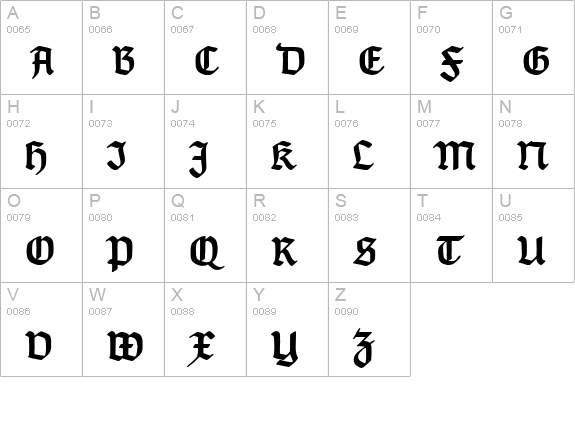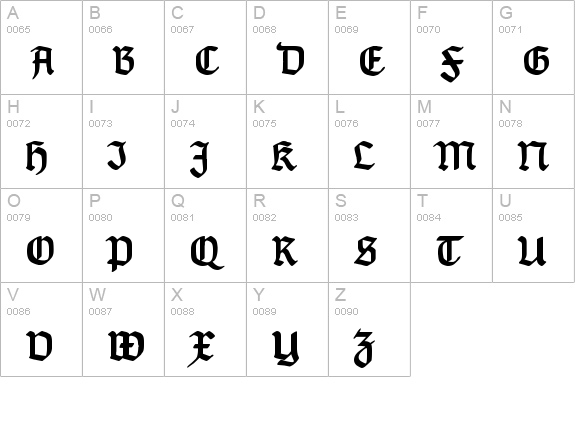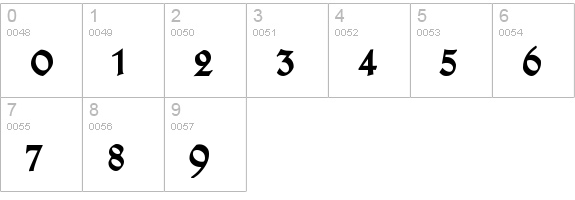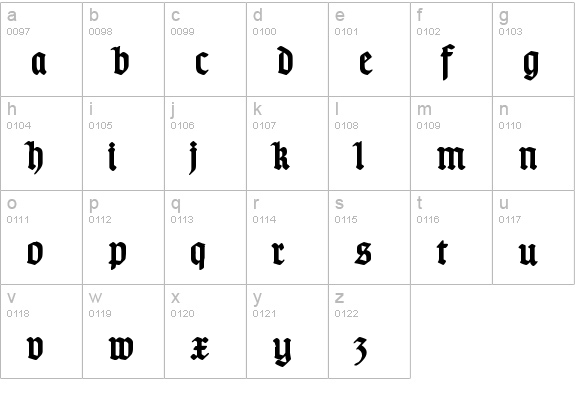
TypographerGotisch D Bold is a strong, high-contrast variant in the TypographerGotisch typeface family \xE2\x80\x94 well suited to headlines, attention-grabbing titles, and strong calls-to-action.
TypographerGotisch D Bold font is a stunning display typeface that exudes elegance and sophistication. Its bold and powerful letterforms make it perfect for headlines, logos, and any design project that requires a touch of grandeur. With its unique blend of Gothic and calligraphic influences, TypographerGotisch D Bold font stands out from the crowd, commanding attention and leaving a lasting impression. Its intricate details and carefully crafted curves give it a sense of timelessness, making it suitable for both traditional and modern designs. Not only does TypographerGotisch D Bold font possess a visually striking appearance, but it also offers incredible versatility. Its generous x-height and well-balanced proportions ensure excellent legibility, even at smaller sizes, ensuring that your message will always be clear and easily understood. And the best part? TypographerGotisch D Bold font is available for free download at FontsMarket.com. Yes, you read that right! You can access this remarkable typeface without any cost, allowing you to elevate your designs without breaking the bank. Whether you're a professional designer or an aspiring creative, TypographerGotisch D Bold font is the perfect addition to your typographic arsenal. Its bold and expressive nature will add a touch of drama to your designs, making them truly unforgettable. So why wait? Don't miss out on the opportunity to enhance your creative projects with this exceptional typeface. Head over to FontsMarket.com now and download TypographerGotisch D Bold font for free. Unleash your creativity and let this font transform your designs into works of art.